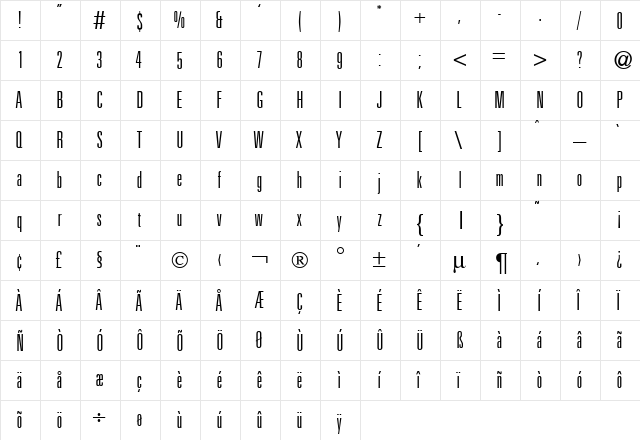
UniversalXCLDB Normal Font Preview
UniversalXCLDB Normal
Design Context for UniversalXCLDB Typeface
UniversalXCLDB takes a measured approach to typography — its balanced proportions and neutral character make it a reliable workhorse for both digital and print work.